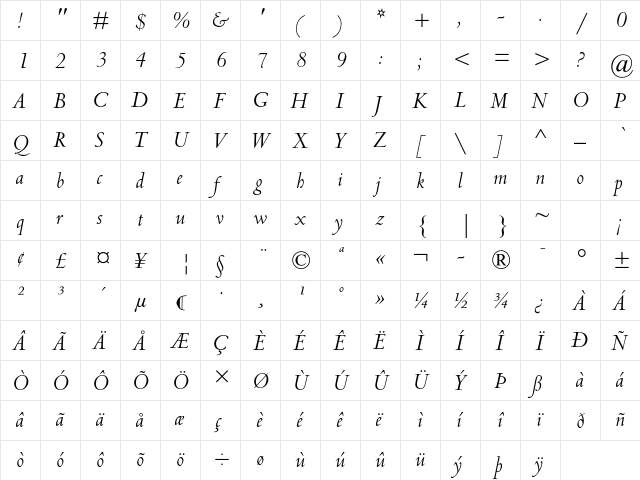
Centaur MT Std Italic
| Designer | Bruce Rogers, Frederic Warde |
Design Context for Centaur MT Std Typeface
Centaur MT Std is a composed and adaptable typeface that performs quietly and consistently across a wide range of design contexts. The dynamic lean of this cut emphasises speed and emphasis in any layout.
Pro Tip: Try Centaur MT Std for annotation and caption copy alongside an upright companion — the contrast in angle creates a dynamic but ordered typographic system.